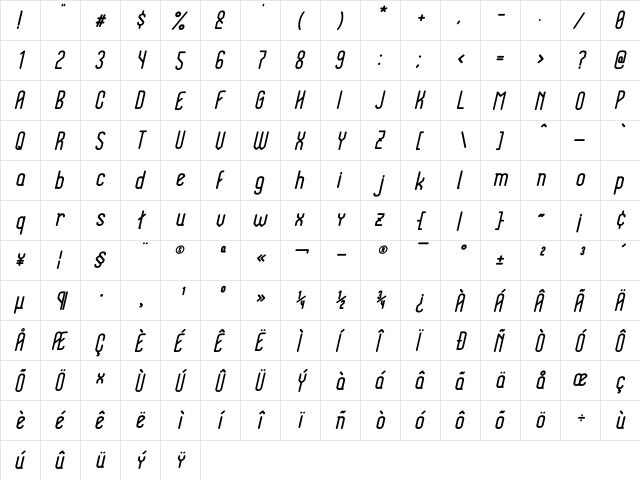
HolySans-Oblique Oblique
Design Context for HolySans-Oblique Typeface
HolySans-Oblique is a composed and adaptable typeface that performs quietly and consistently across a wide range of design contexts. The dynamic lean of this cut emphasises speed and emphasis in any layout.
Pro Tip: Use HolySans-Oblique for emphasis, pull quotes, and subheadings where its slanted energy can add rhythm to the layout.